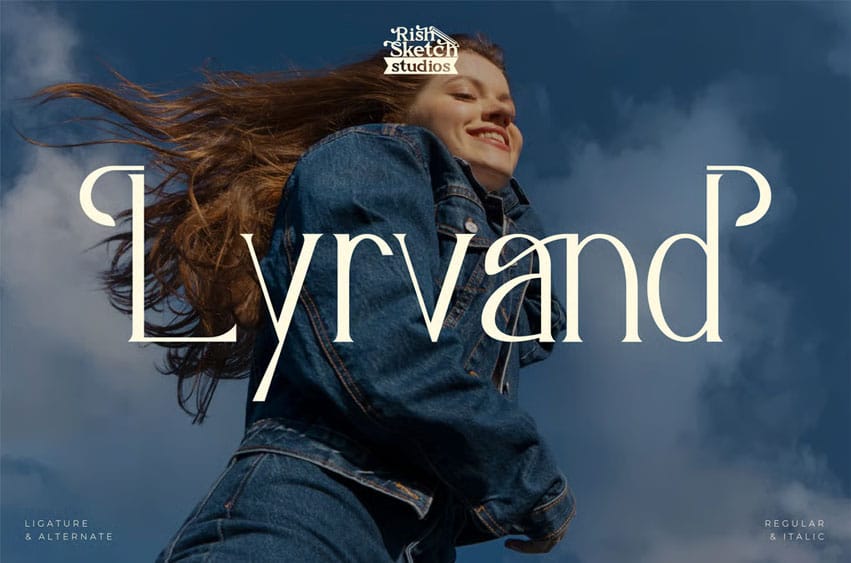
Lyrand Font Modern Serif Font, from Rishsketch Studios, is a premium Modern Serif Font, perfect for any project that requires a distinctive and premium feel.
Ligature, Alternate & Multilingual